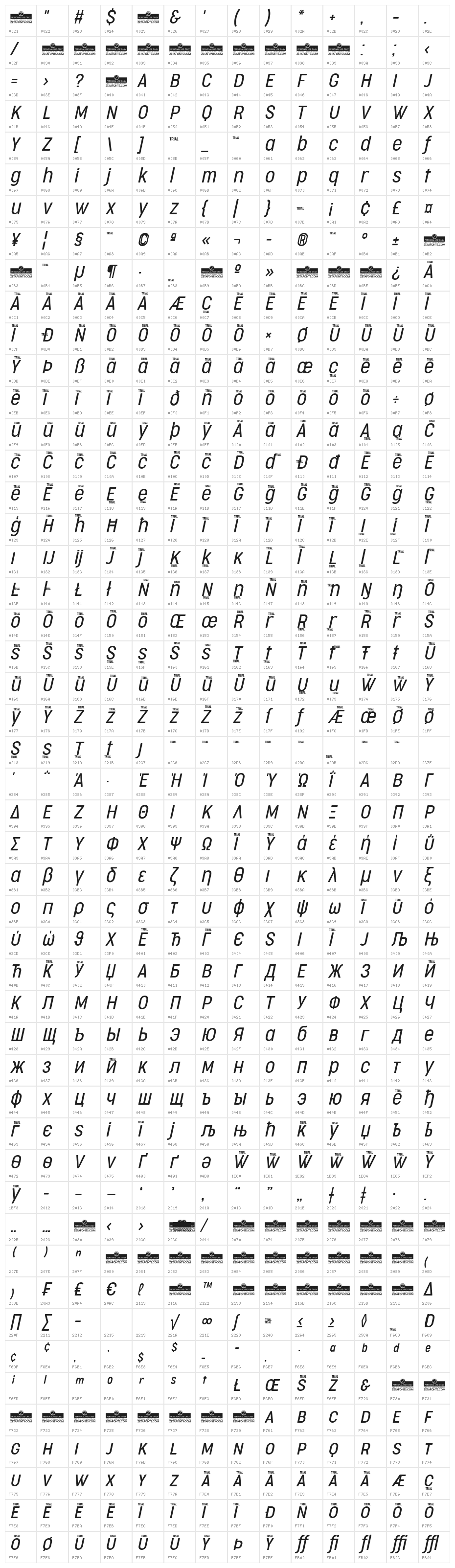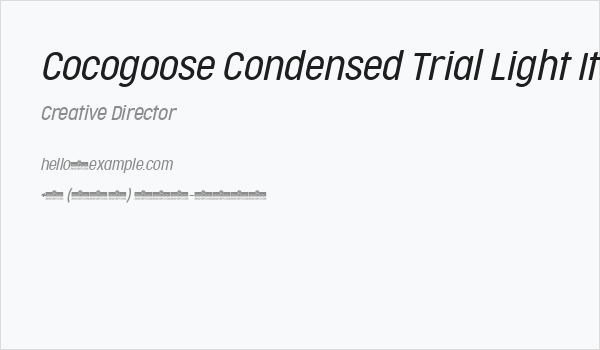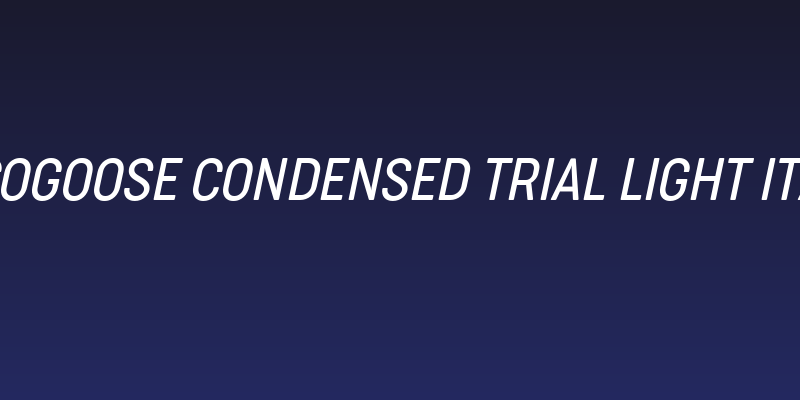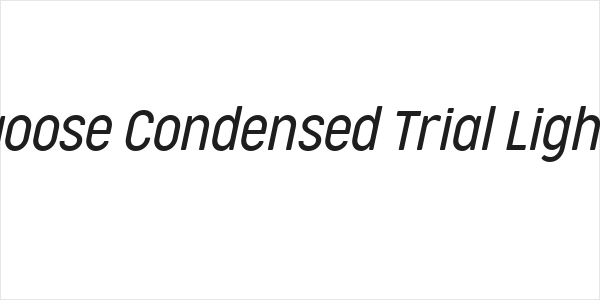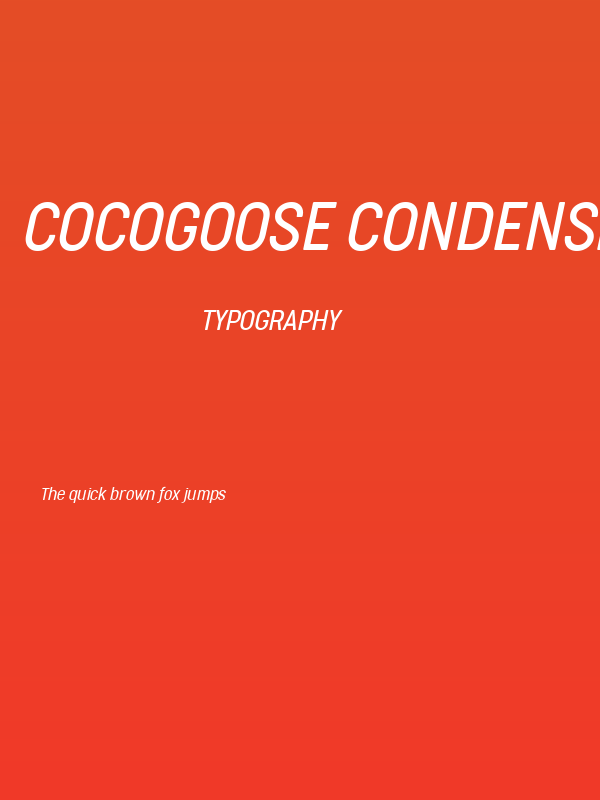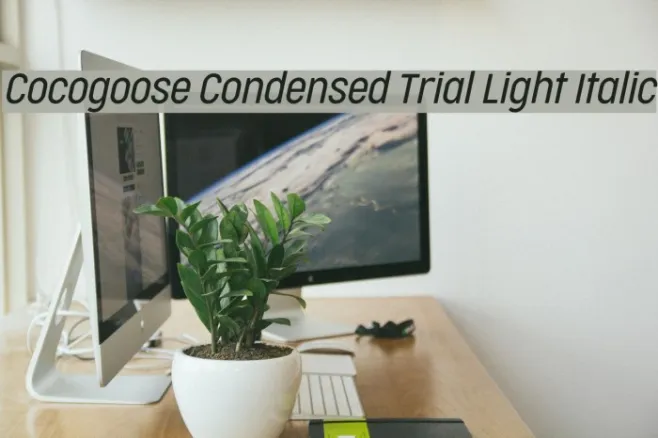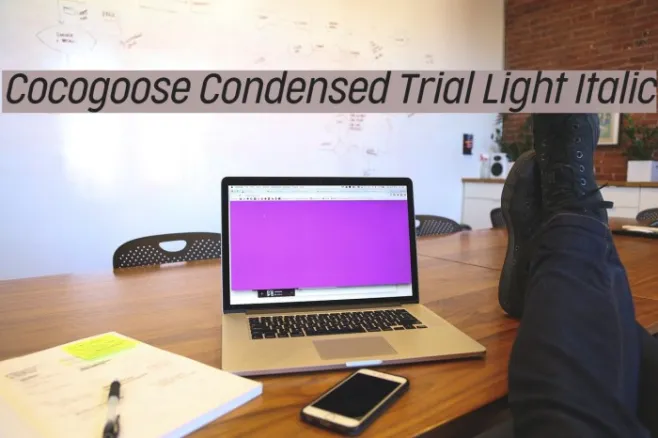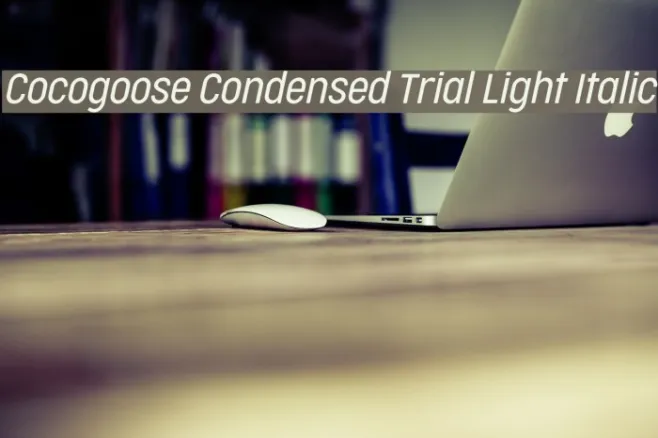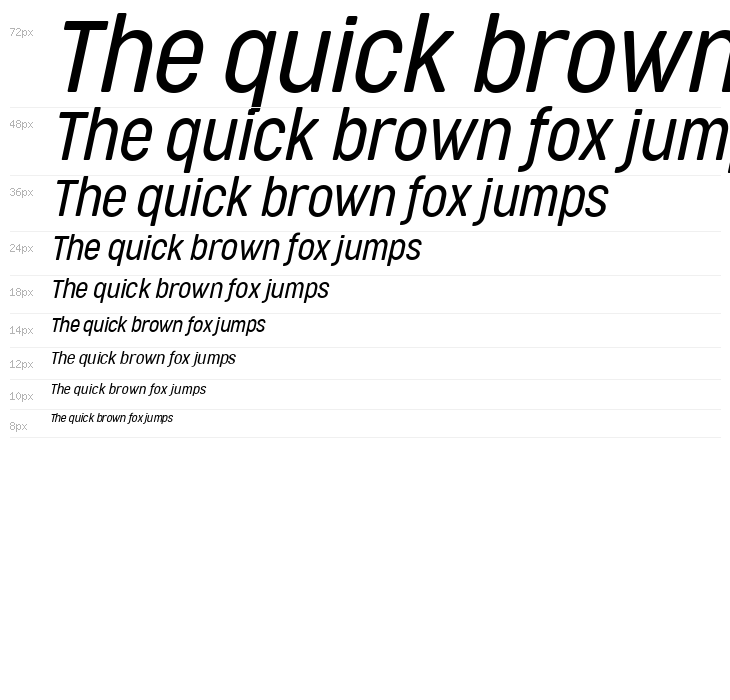
Cocogoose Condensed Trial Light Italic Font
This font exhibits a sleek and modern design with a condensed structure, offering a light and airy feel. The italic style adds a dynamic and forward-leaning appearance, enhancing its contemporary aesthetic. The characters are well-defined with a consistent stroke width, providing a clean and professional look. The uppercase and lowercase letters maintain a harmonious balance, while the numerals and special characters are crafted with precision. The overall design is versatile, making it suitable for various applications where a modern and stylish typeface is desired.
| Proposed Projects | Ideal for branding, advertising, editorial design, and digital interfaces where a contemporary and stylish typeface is needed. |